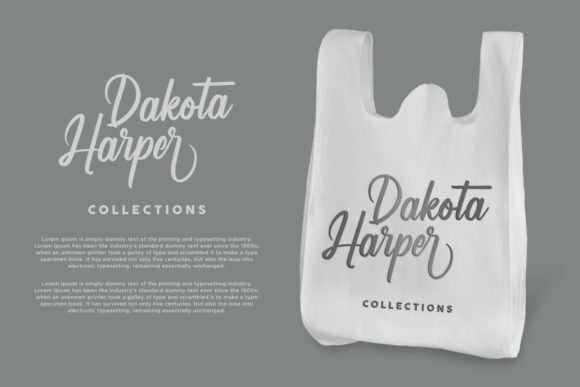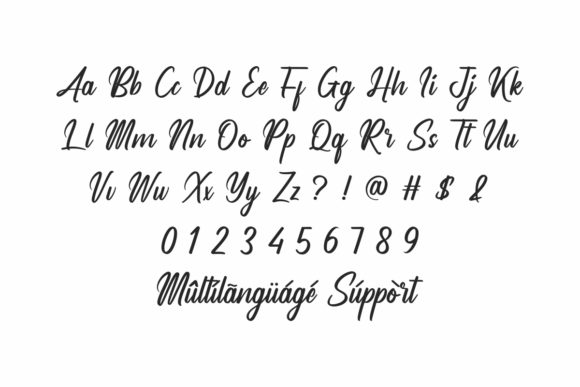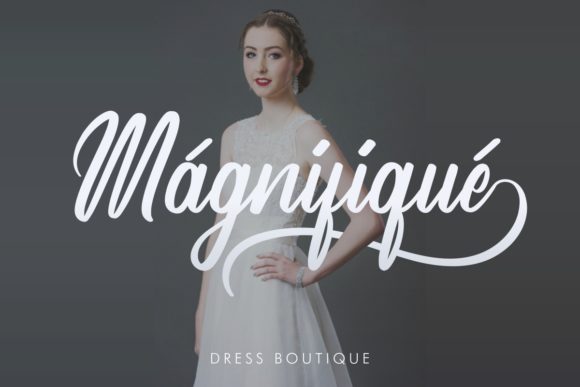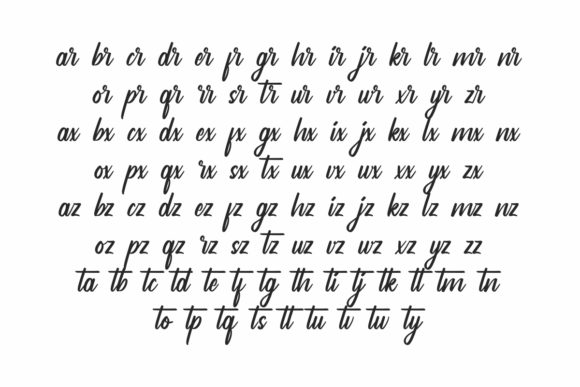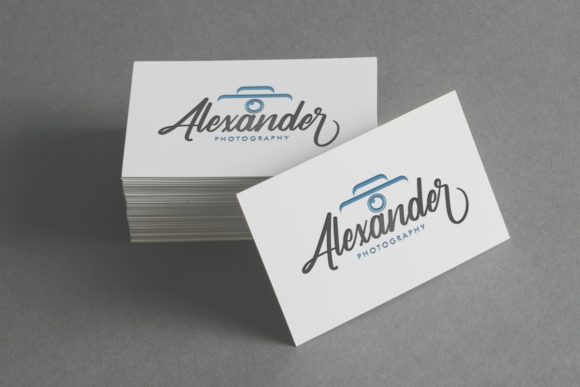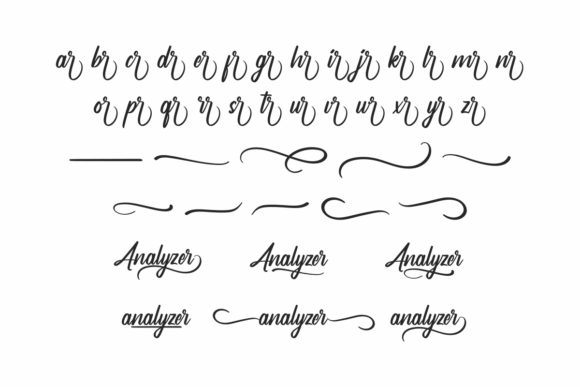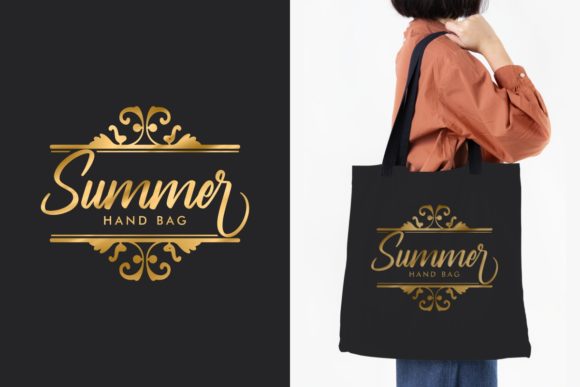
Analyzer Font
About Analyzer Font
Analyzer is a unique and elegant handwritten font. It looks beautiful on a variety of designs requiring a personalized style, such as wedding invitations, thank you cards, weddings, greeting cards, logos and so on.